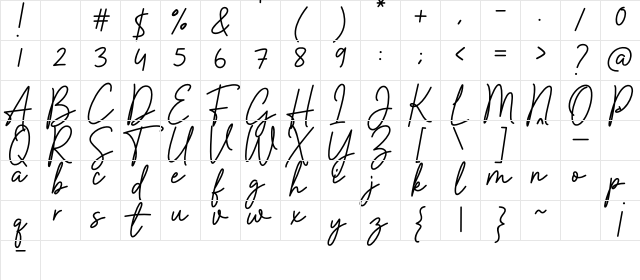
Complete Camellia Signature DEMO! DEMO! Regular glyph index. Displaying only characters natively supported by Camellia Signature DEMO! DEMO! Regular font.
Camellia Signature DEMO! DEMO! is a composed and adaptable typeface that performs quietly and consistently across a wide range of design contexts.